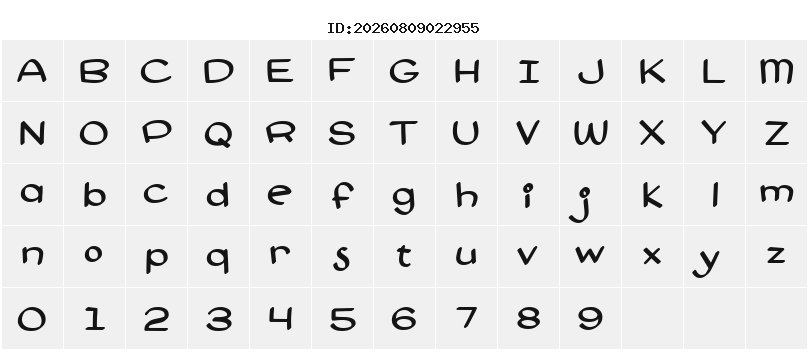
• Font Name: Pie Contest BTN Quill
About Pie Contest BTN Quill.ttf
Pie Contest BTN Quill.ttf is a modern, elegant sans-serif font designed for ultimate readability and visual harmony. Perfect for branding, headlines, web design, and print materials.